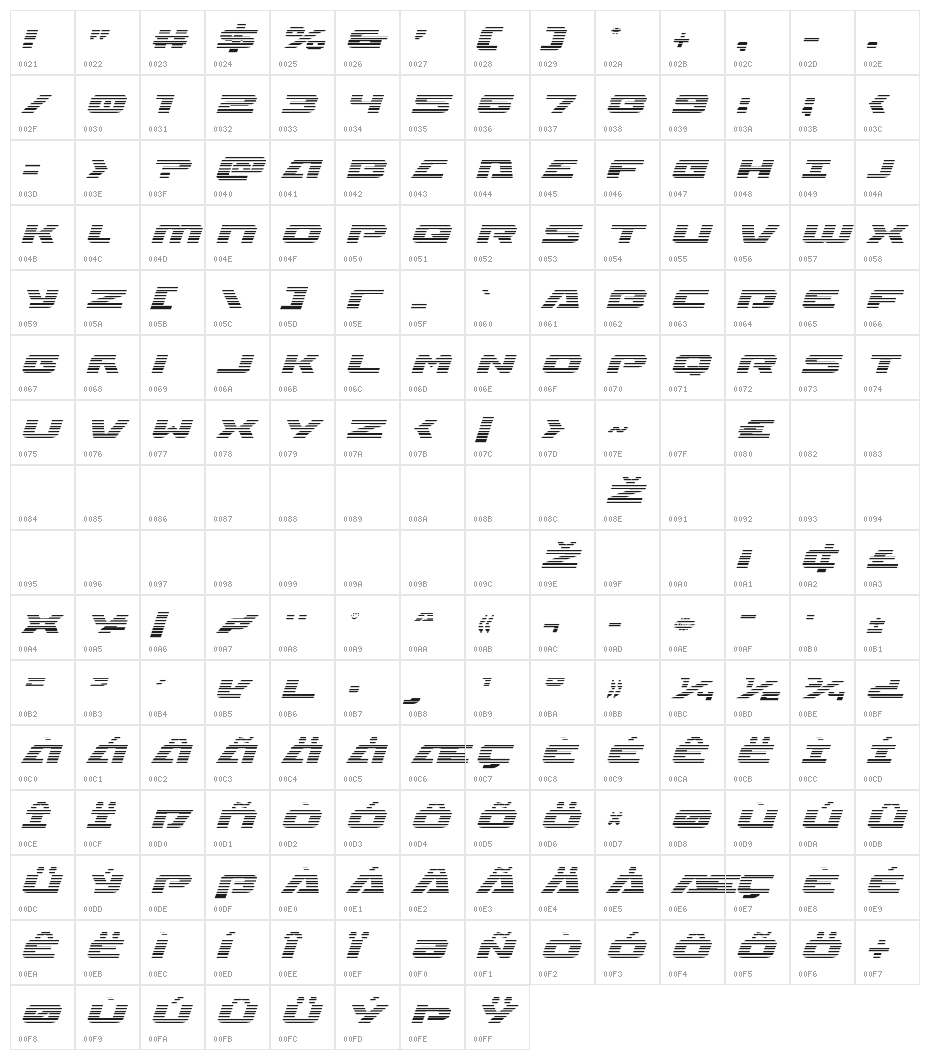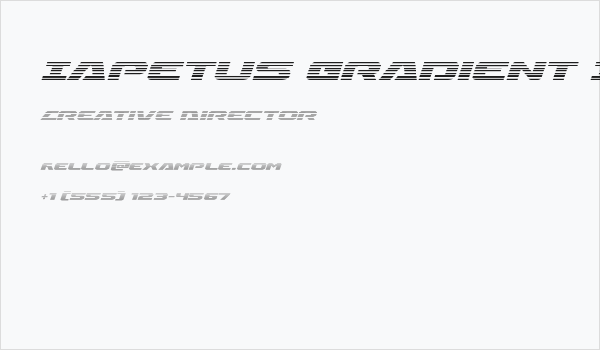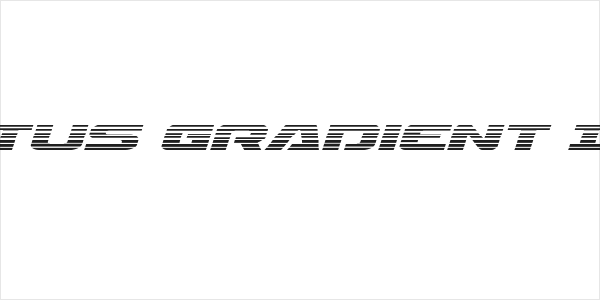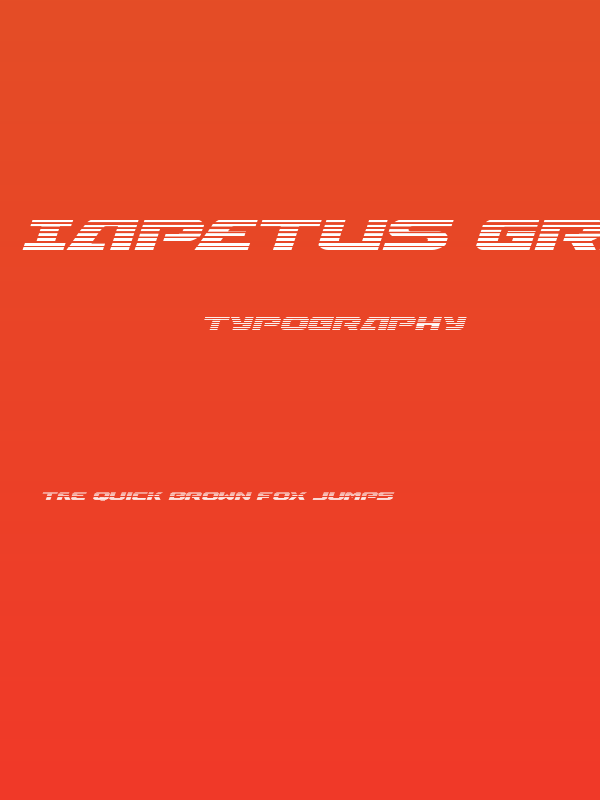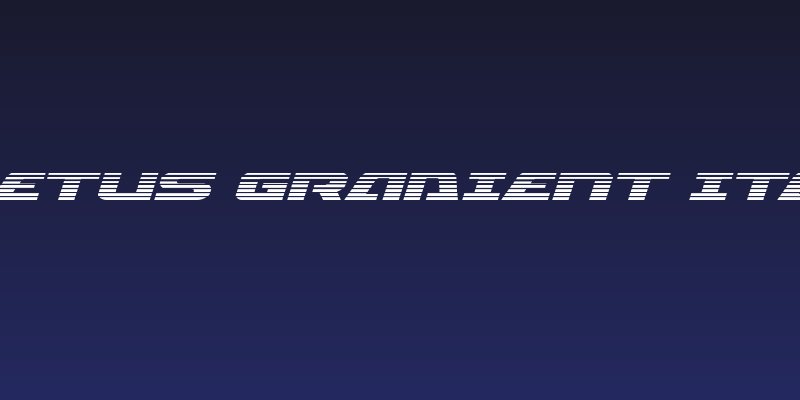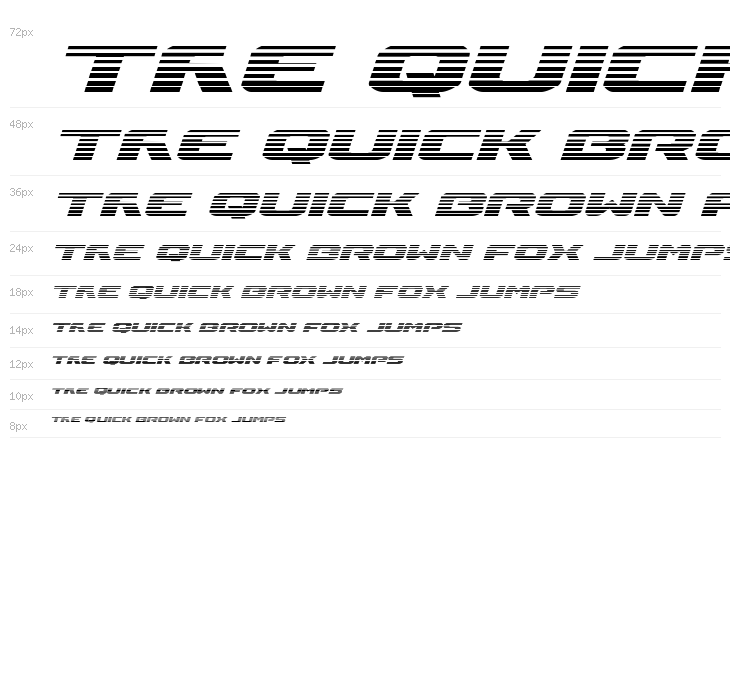
Iapetus Gradient Italic Font
Iapetus Gradient Italic Description
This font features a futuristic and dynamic design with a distinct italic slant. Each character is composed of horizontal lines that create a gradient effect, giving the font a sense of motion and speed. The uppercase and lowercase letters maintain a consistent style, with sharp angles and clean lines. Numbers and special characters follow the same design principles, ensuring uniformity across all glyphs. The overall appearance is bold and eye-catching, making it suitable for projects that require a modern and energetic look.
| Proposed Projects | Ideal for sci-fi themed designs, technology branding, video game titles, and dynamic posters. |